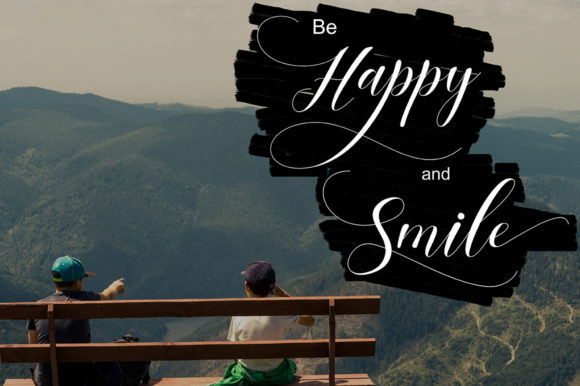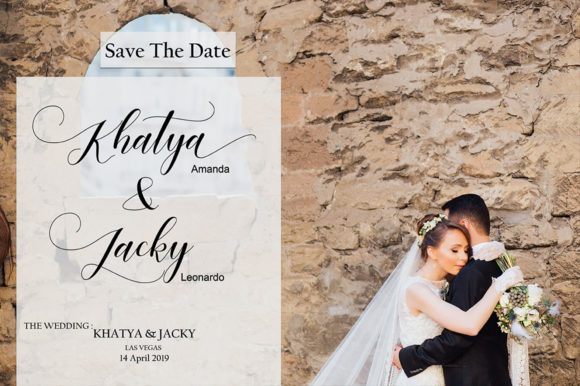
The Magic of Handwritten Fonts: Elevating Your Design
Have you ever been working on a design project and suddenly, a spark of creativity strikes? You envision the perfect font, one that captures the essence of your vision and leaves a lasting impression. For many designers, this moment is a turning point in their creative process.
That’s where Glitter Script Font comes in – a sophisticated and unique handwritten font with bold swashes that can turn any design project into a standout. This beautiful font is designed to add a touch of elegance and whimsy to your work, making it perfect for invitations, branding, and other design projects where you want to make a statement.
As a designer, you know how valuable the right font can be in elevating your work. The Glitter Script Font is no exception, offering a level of sophistication and flair that’s hard to find in other fonts. With its bold swashes and elegant style, this font is sure to become a favorite among designers looking to add a touch of magic to their designs.
Glitter Script Font Key Features
- Unique Characteristics: The Glitter Script Font features a beautiful, cursive script style with intricate details and flourishes, adding a touch of sophistication and elegance to any design.
- Legibility: Despite its ornate design, the font remains highly legible, making it suitable for use in a variety of contexts, from formal invitations to creative marketing materials.
- Comprehensive Character Set: The font includes a comprehensive character set, including uppercase and lowercase letters, numerals, punctuation marks, and special characters, ensuring that designers have everything they need to create professional-looking designs.
Designer Review: Glitter Script Font
I recently had the chance to work with the Glitter Script Font, and I must say it’s a mixed bag. Here are my thoughts:
- The Glitter Script Font is perfect for adding a touch of whimsy and elegance to your designs. Its playful, cursive script is sure to grab attention.
- The font is highly customizable, with a wide range of color and size options. This makes it easy to adapt to different design styles and themes.
- The Glitter Script Font is also highly legible, even at smaller sizes. This is a big plus for designers who need to use the font in a variety of contexts.
- The Glitter Script Font can be a bit too flashy for some designs. Its over-the-top sparkle can be overwhelming if not used judiciously.
- The font is not suitable for body text or long blocks of copy. Its playful script style can make it difficult to read in large quantities.
Overall, I think the Glitter Script Font is a great addition to any designer’s toolkit. While it may have some limitations, its unique style and high customizability make it a great choice for the right projects. Just be sure to use it in moderation and with a clear understanding of its strengths and weaknesses.
The Glitter Script font is perfect for adding a touch of elegance and sophistication to your designs. It’s commonly used for:
– Party and event invitations
– Any design that requires a touch of glamour and sophistication